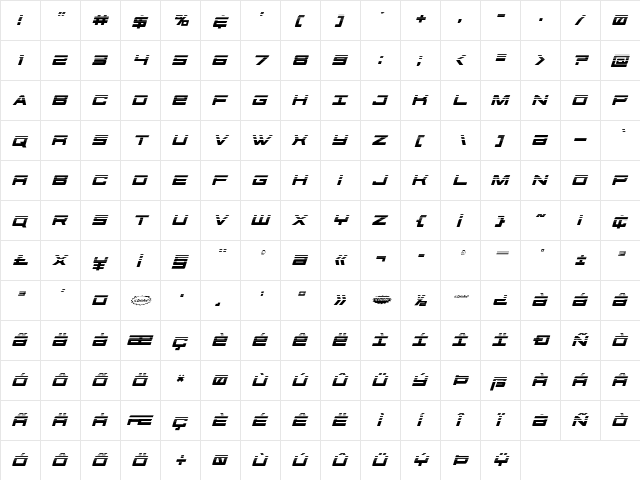
Design Context for Future Forces Halftone Italic Typeface
Future Forces Halftone Italic has a distinctly futuristic character, with geometric precision and clean angles that feel at home in technology, gaming, and sci-fi contexts. The dynamic lean of this cut emphasises speed and emphasis in any layout.
Pro Tip: Use Future Forces Halftone Italic in combination with a neutral sans for body text. Let it define the brand voice in headlines while keeping reading comfortable elsewhere.